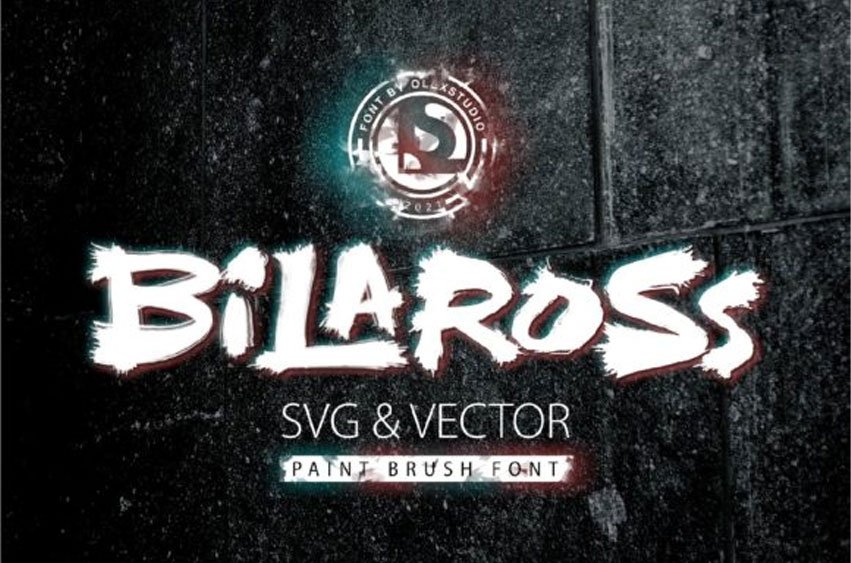
Bilaross Font is a cool, brushed and quirky display font.
This font is suitable for designs such as t-shirts, sportswear, logos, advertisements, clothing, and more.